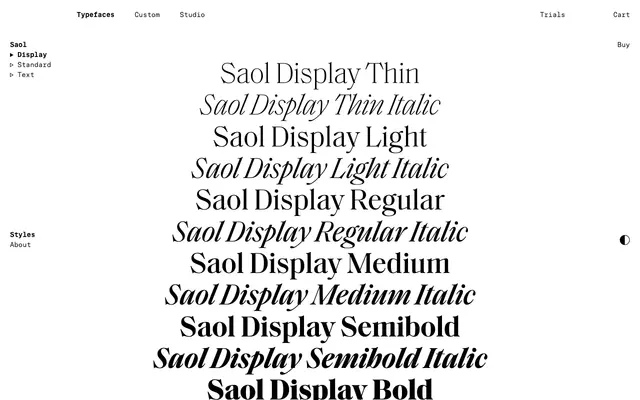
Saol Display
Saol's display optical size: a high-contrast Victorian old-style serif for headlines, with delicate hairlines and flamboyant swash italic.
Saol Display is the largest-size cut of Saol. The foundry describe it as featuring delicate hairlines for maximum contrast, drawn for striking headlines and titling. Six weights from Thin to Bold with matching italics include opulent swash italic capitals, and connect down through Saol Standard for middle sizes and Saol Text for body copy. The Victorian sources behind the family (Ronaldson 1884, Caxton Old Style 1889, West Old Style 1892) come through most fiercely here, with razor-edge details and exaggerated terminals.
The display optical size of Saol; the foundry describe it as featuring delicate hairlines for maximum contrast.